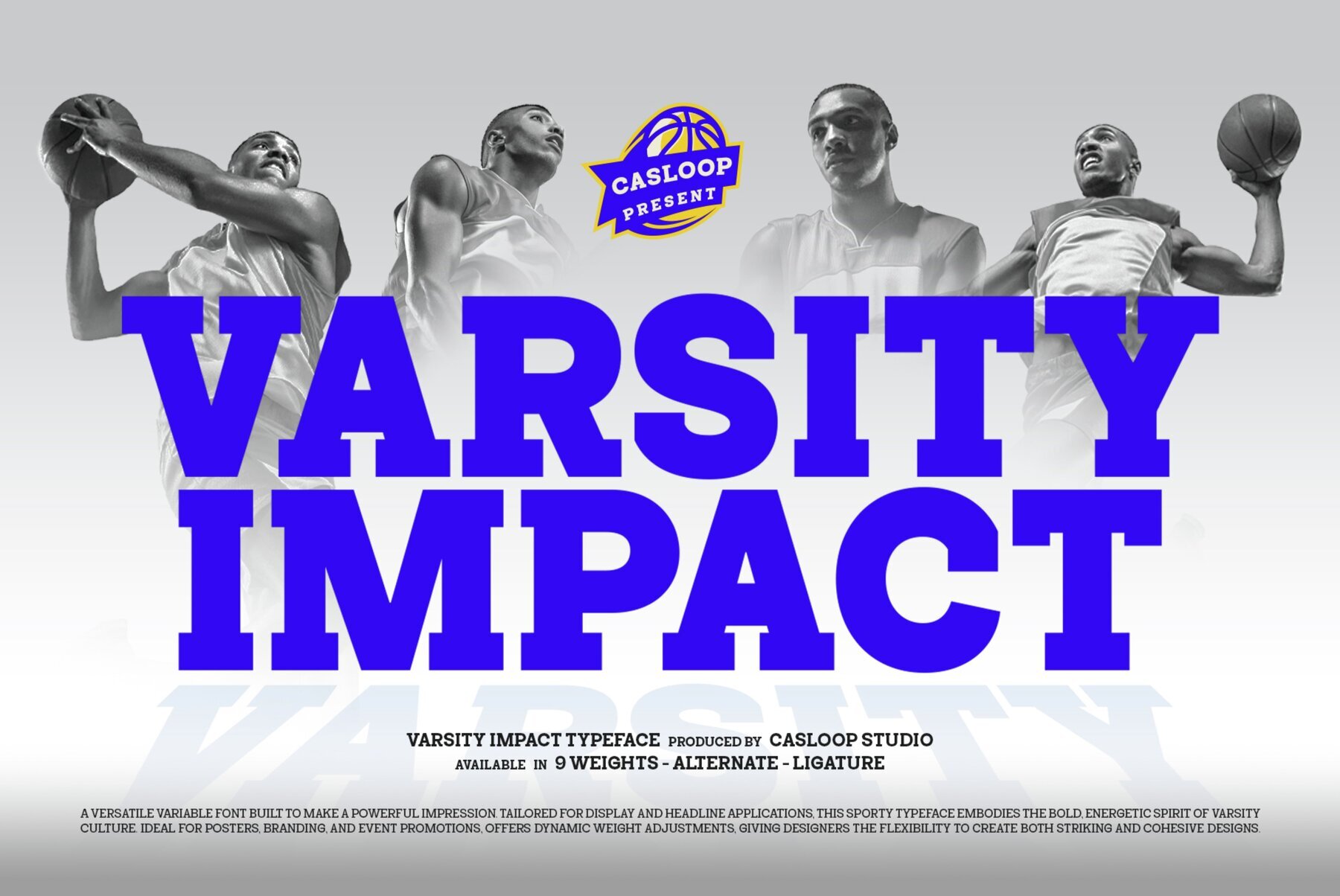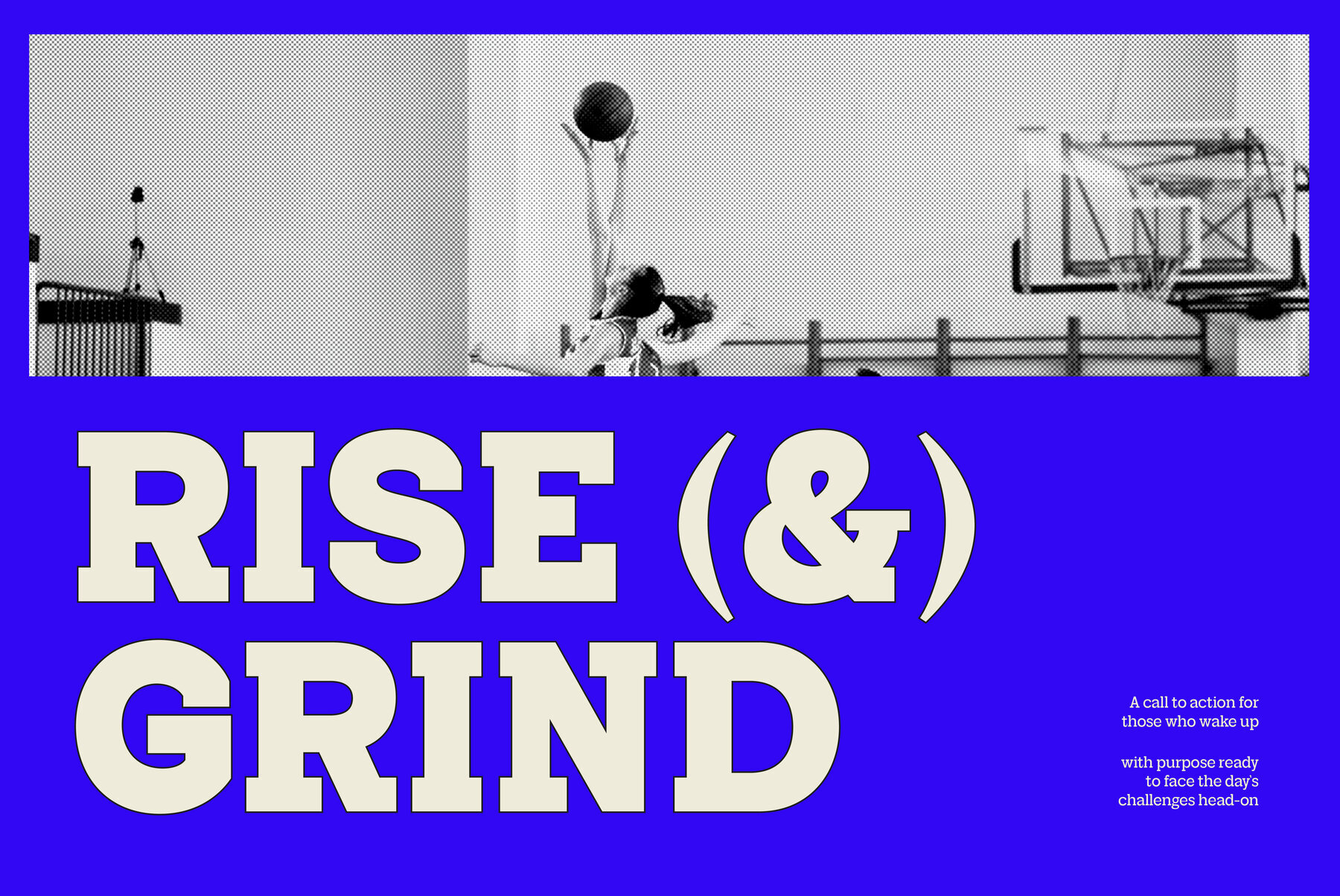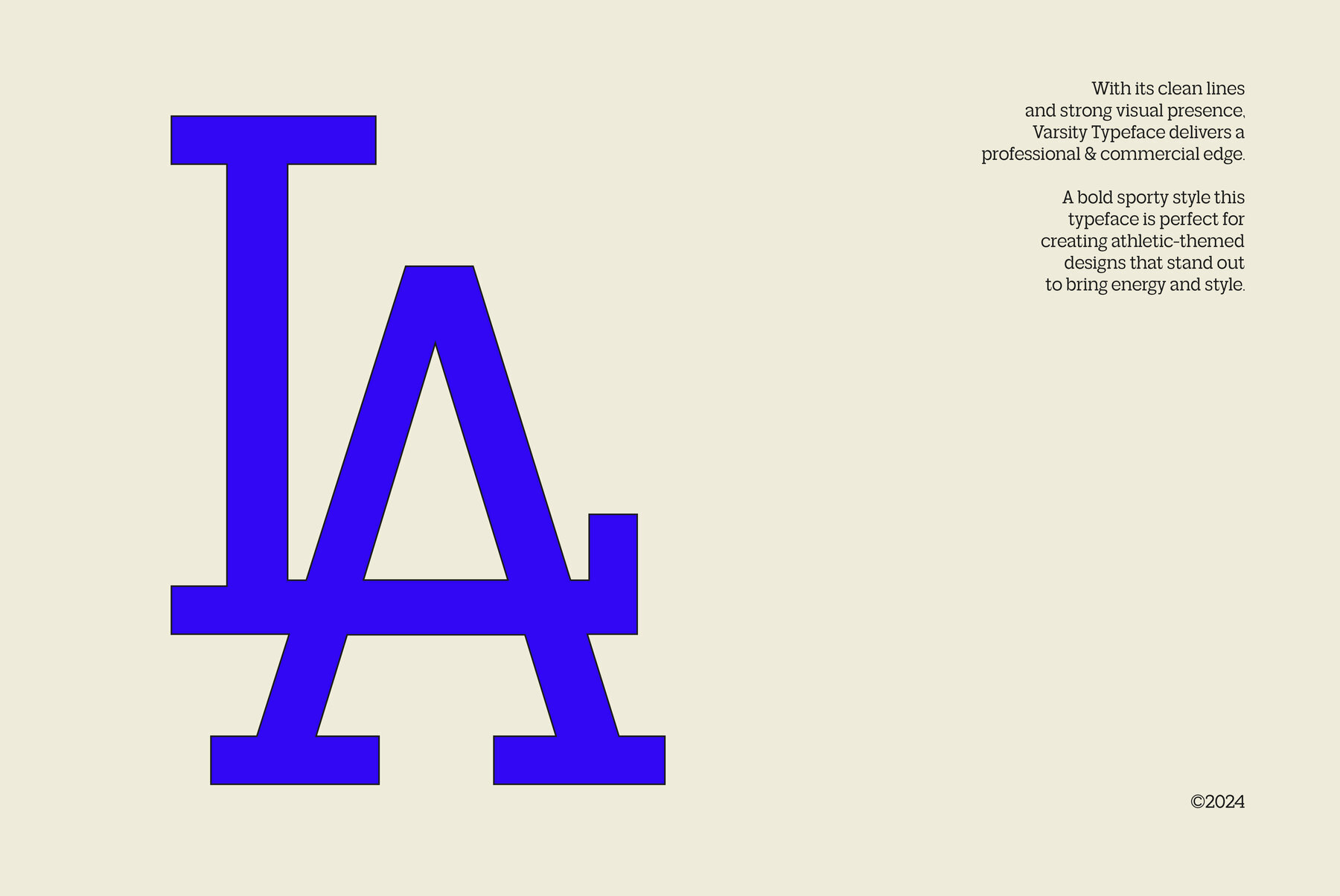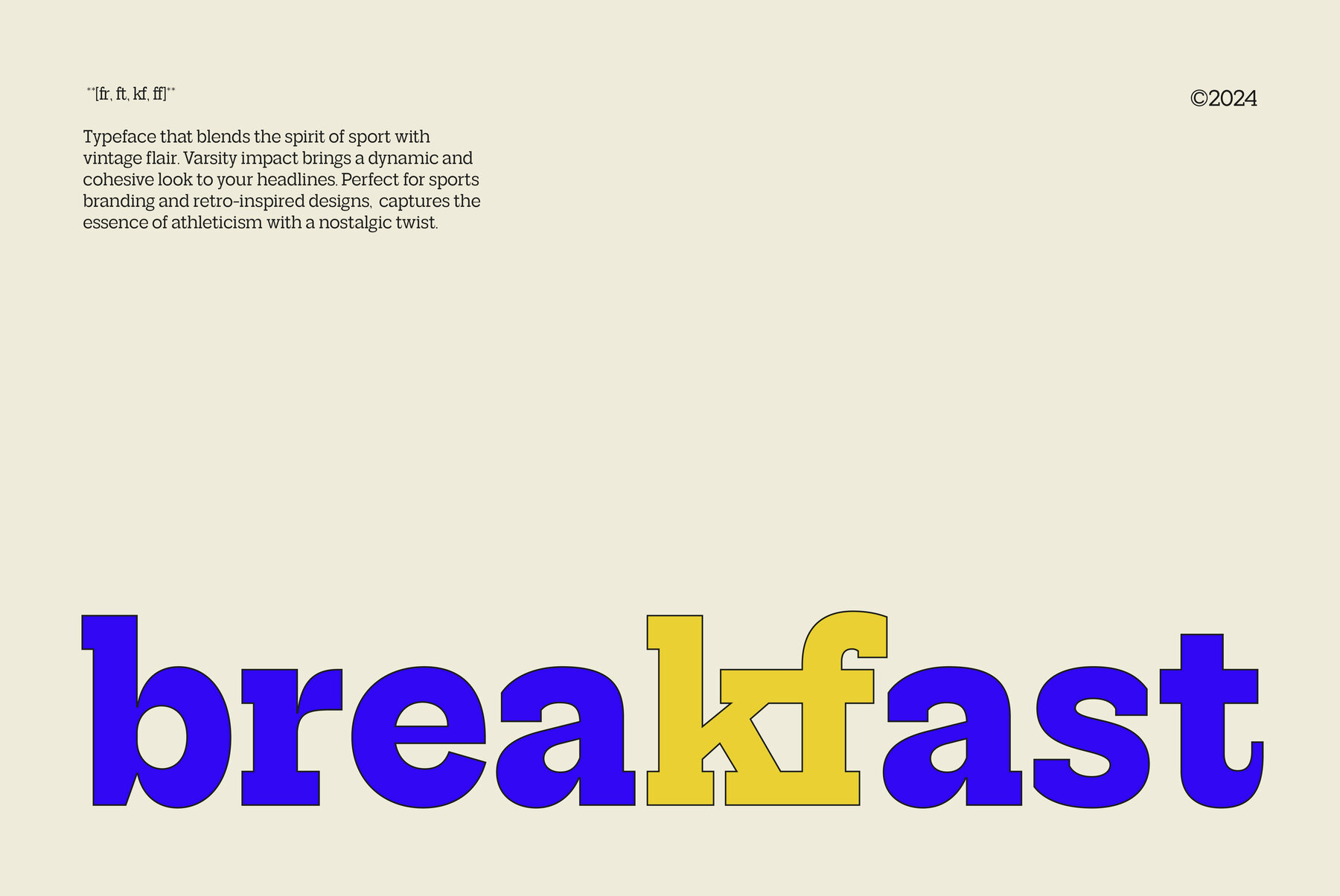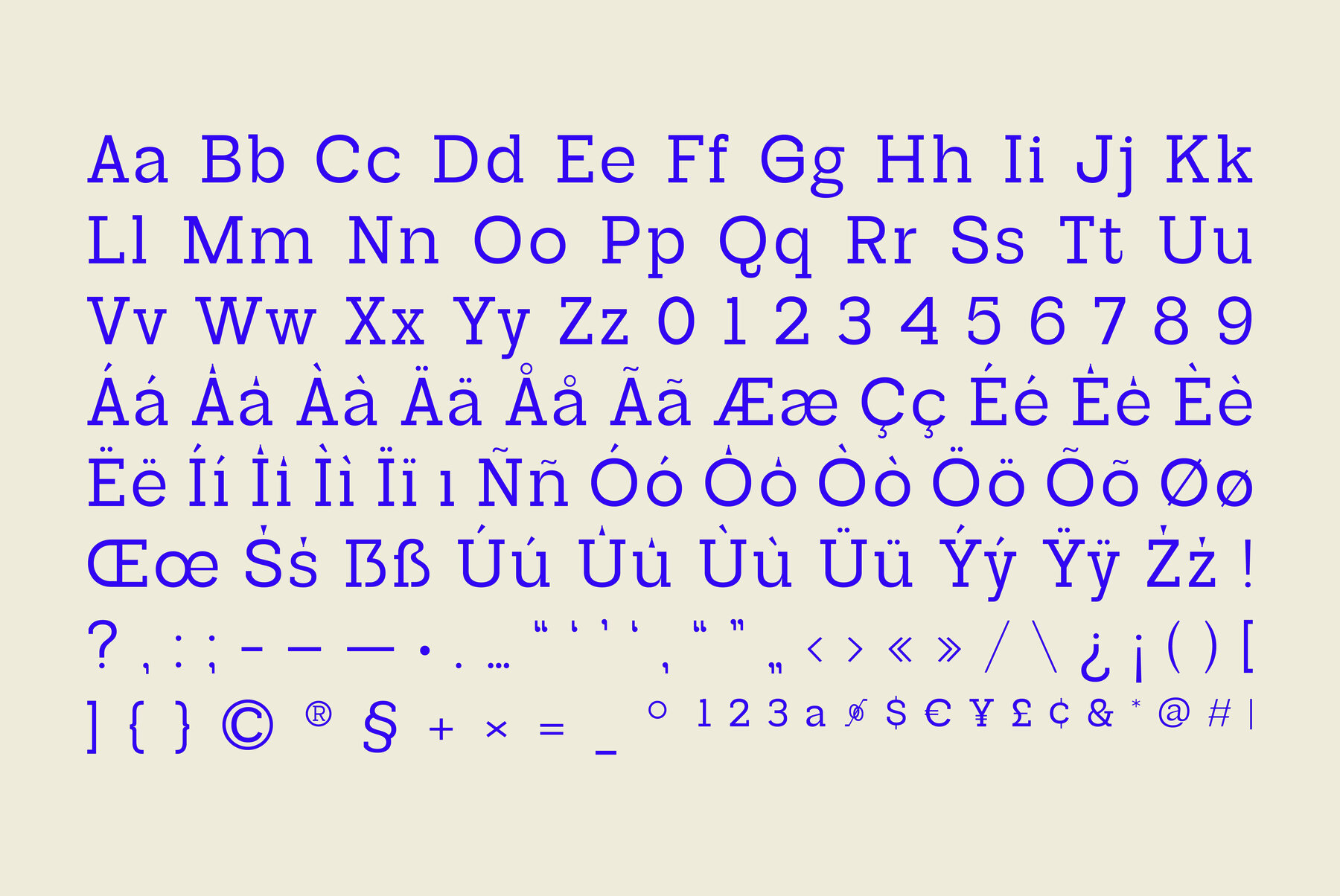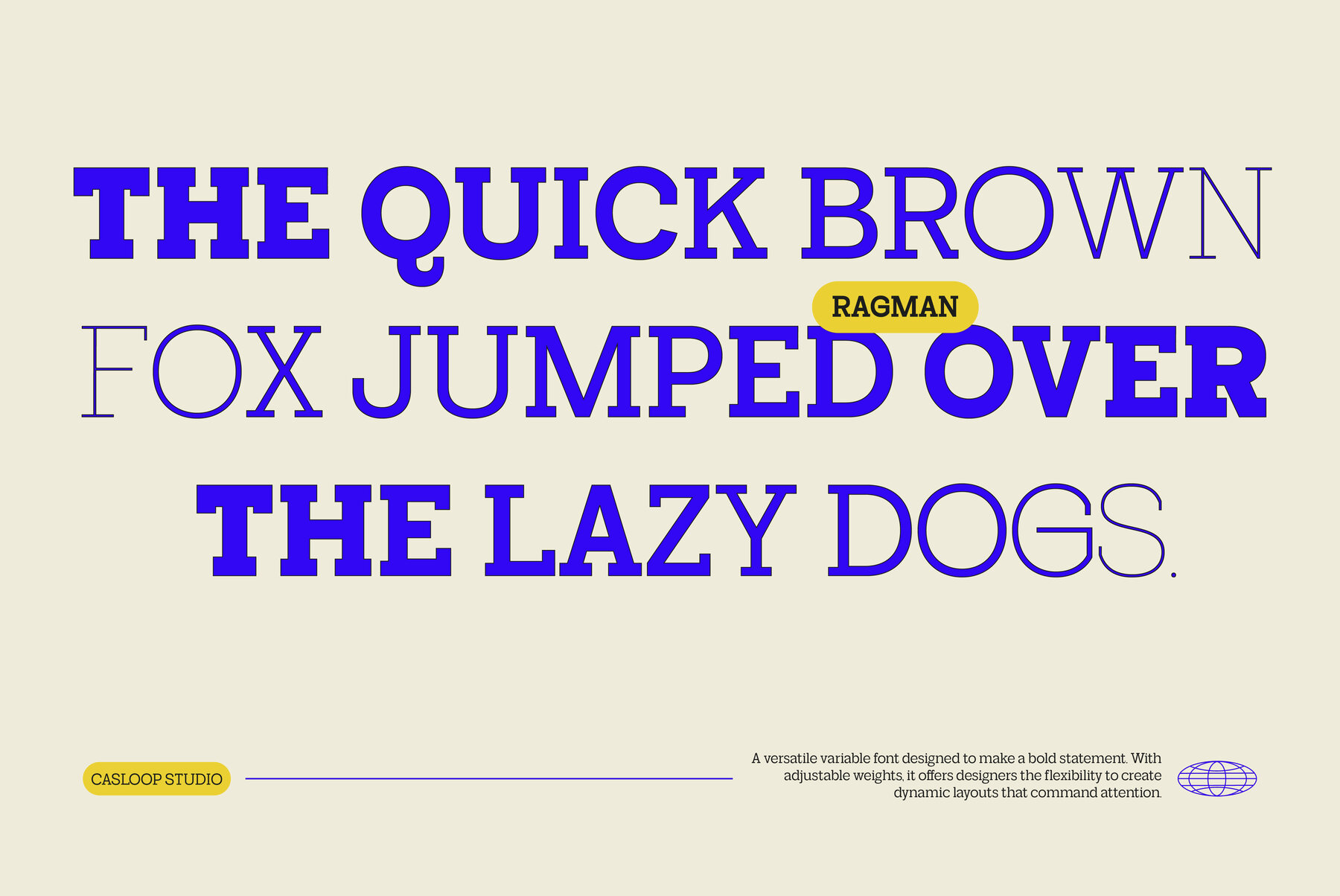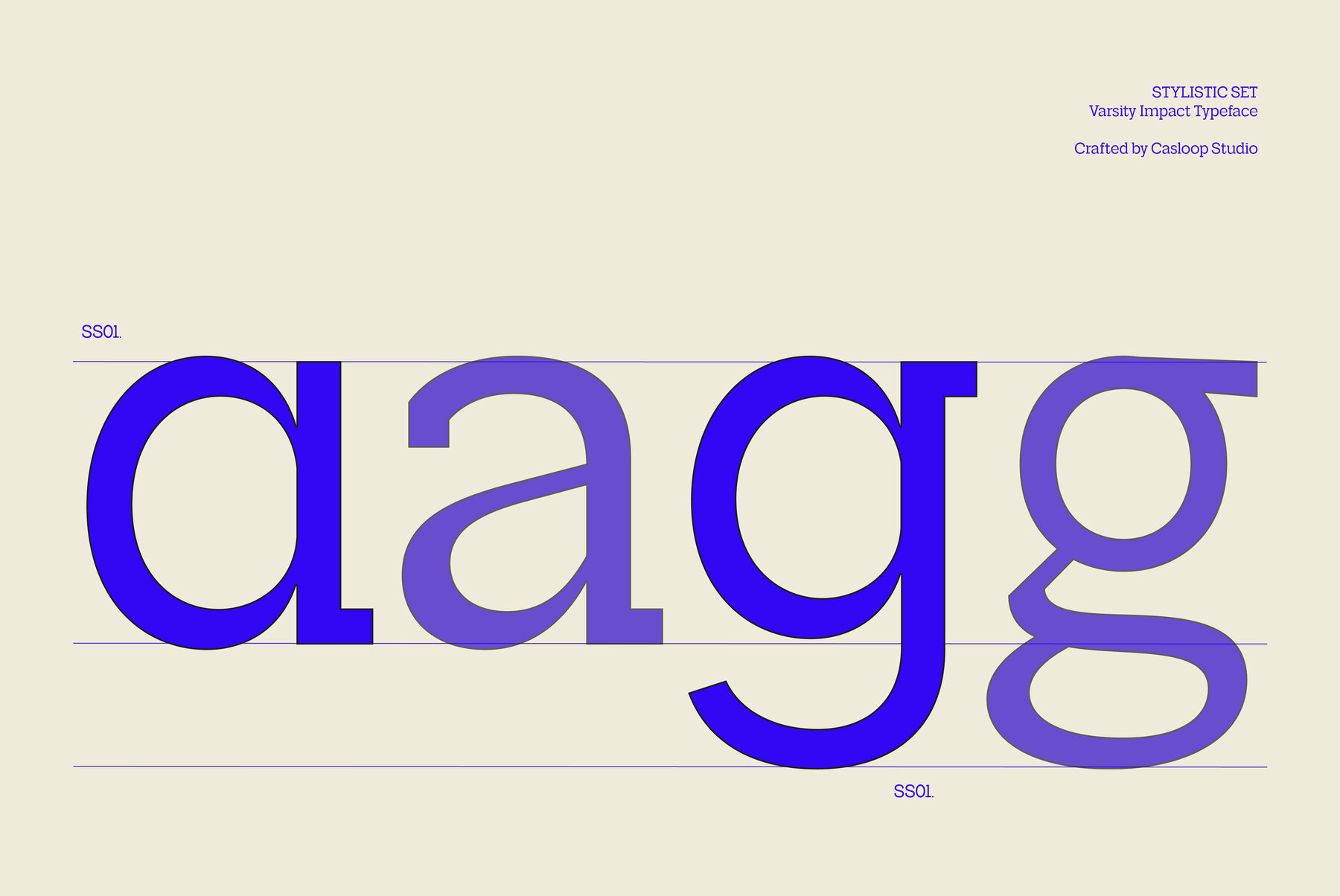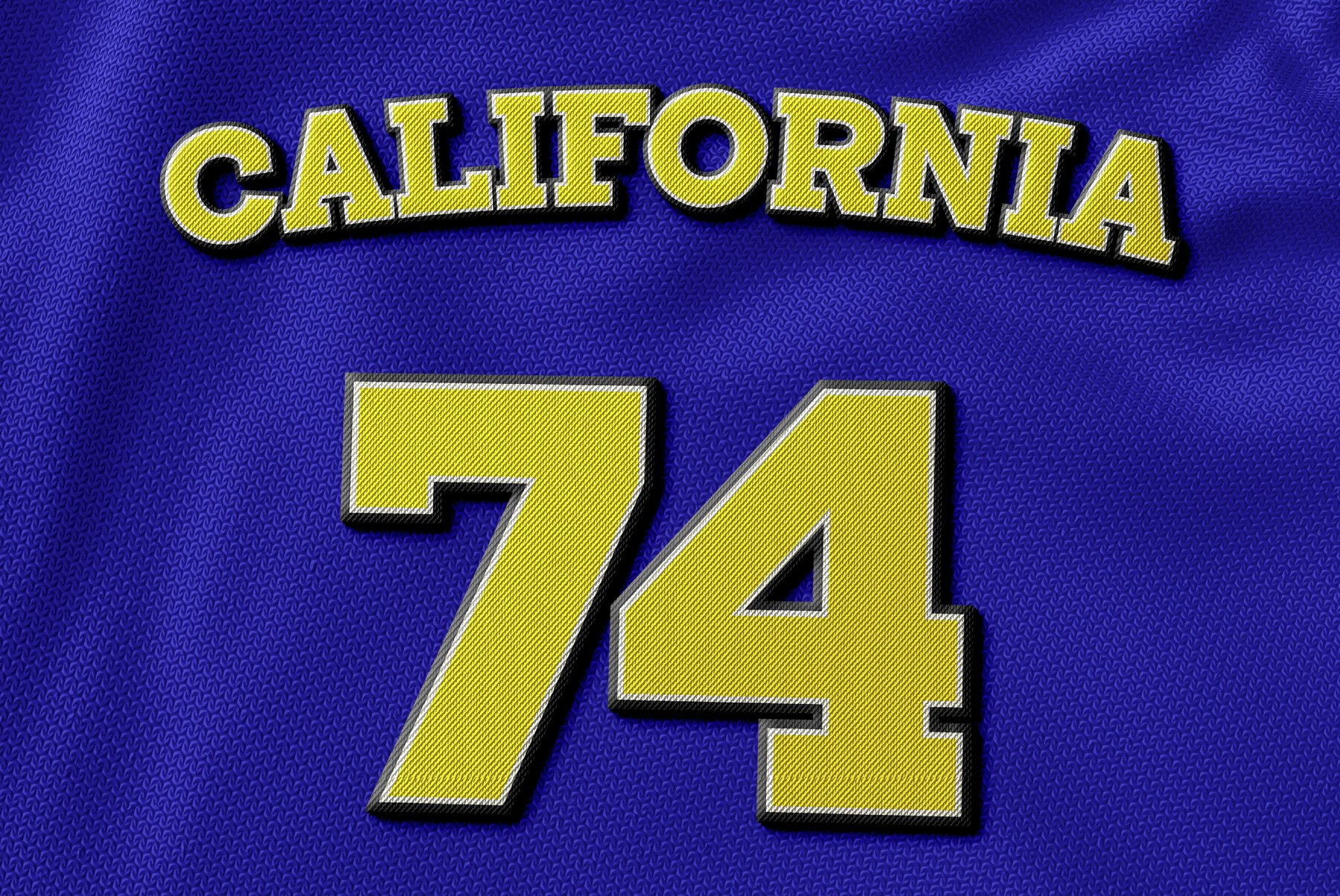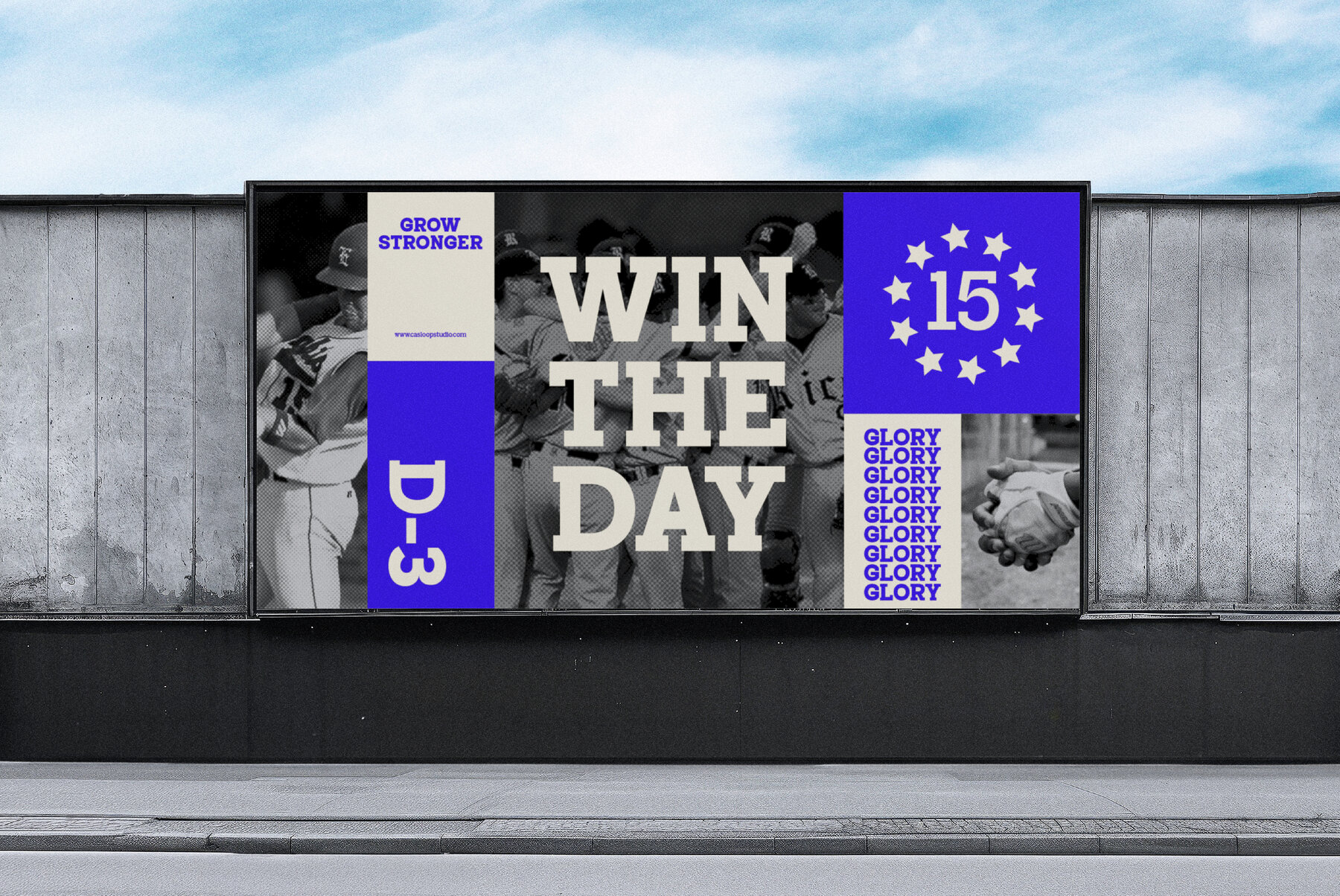
Varsity Impact Font
Varsity Impact offers a blend of modern flair and dynamic versatility. This Sport Slab Serif typeface is ideal for university sports branding and athletic apparel. Its strong, legible characters deliver a quirky yet refined aesthetic, making it perfect for campus posters and digital media visuals. Its bold, blocky elements are suited for a wide range of uses, including sporty jerseys, college branding, construction signage, and motion graphics. With each letter, your text commands attention. The variety of weights from Thin to Black, along with adaptable font family options, provide endless creative flexibility. Reveal the strong, athletic charm of Varsity Impact in your next project.Varsity Impact: Dynamic Sport Slab Serif